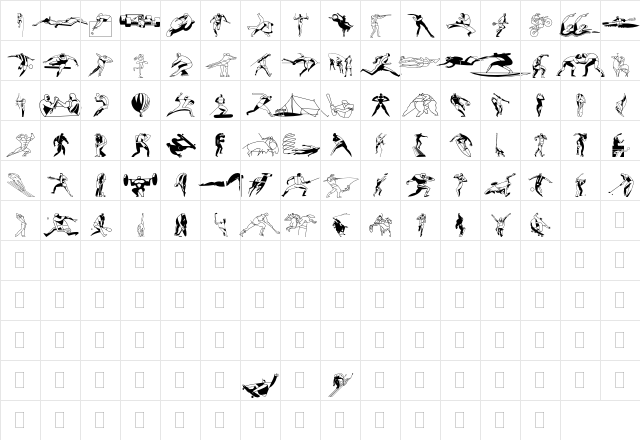
DF Energetics Plain Font Preview
DF Energetics Plain
DF Energetics Plain Font Details
Design Context for DF Energetics Typeface
DF Energetics is a composed and adaptable typeface that performs quietly and consistently across a wide range of design contexts.